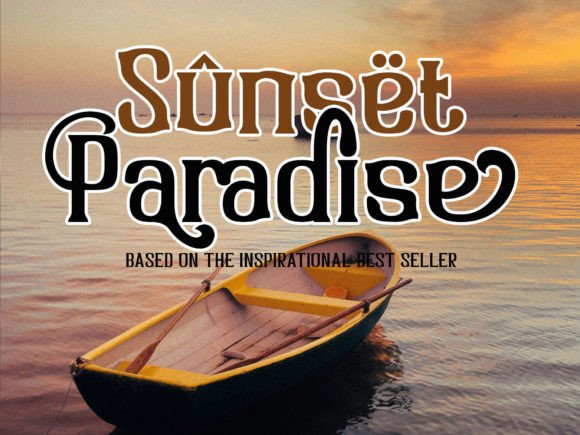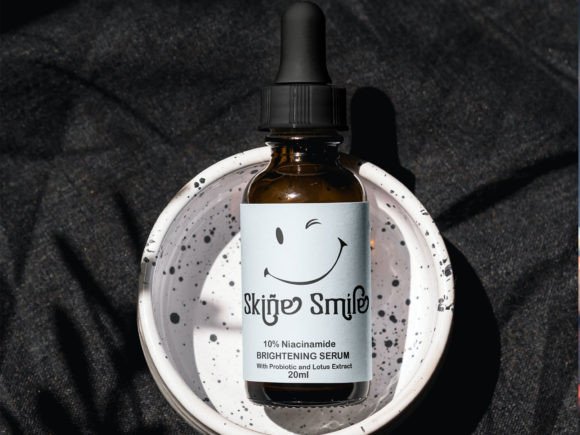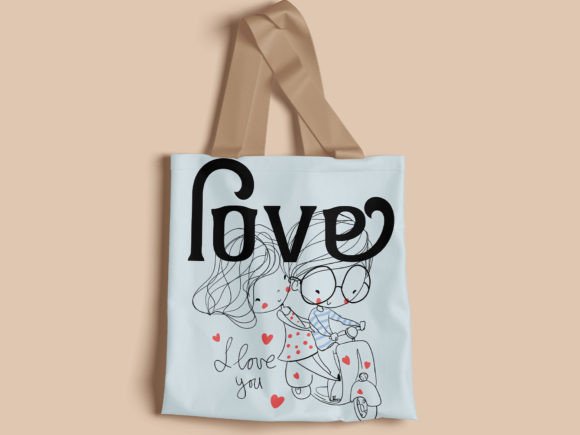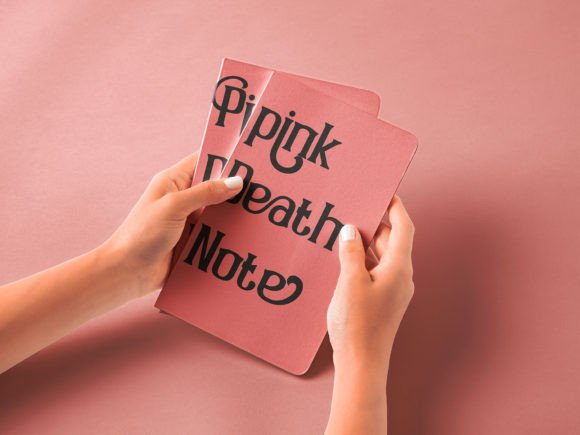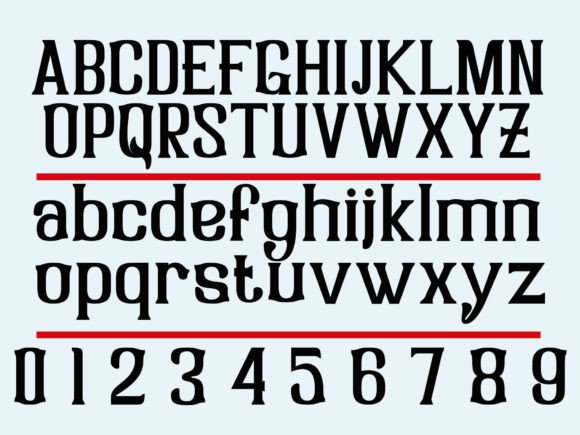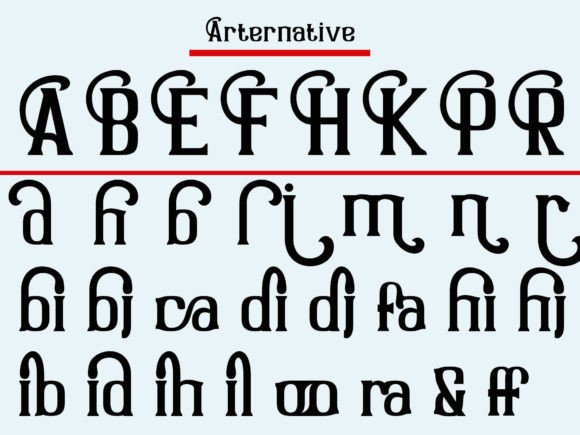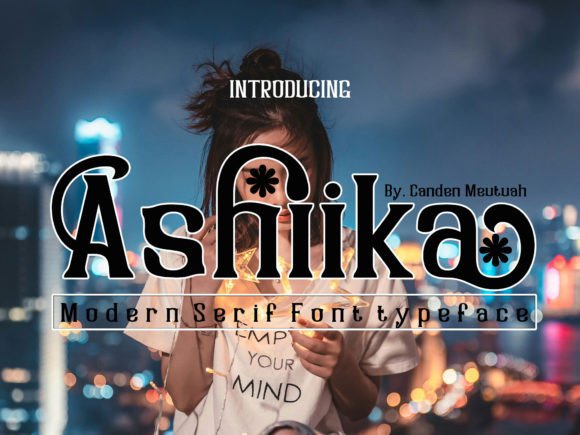
Ashika Font: Elevate Your Designs with Elegance and Modernity
In the world of typography, fonts play a crucial role in conveying the tone and personality of a design. For designers and crafters seeking a simple yet elegant serif font that embodies modern style, Ashika Font is an excellent choice. This versatile font is perfect for a wide range of applications, from branding and logos to wedding designs, social media posts, and more.
What is Ashika Font?
Ashika Font is a beautifully crafted serif font that strikes a balance between simplicity and elegance. Its clean lines, subtle curves, and modern aesthetic make it an ideal choice for designers looking to add a touch of sophistication to their work. Whether you’re creating a brand identity, designing a wedding invitation, or crafting a social media post, Ashika Font is sure to impress.
Key Features of Ashika Font
- Simple and Elegant Design: Ashika Font boasts a clean and refined design that exudes elegance and sophistication.
- Modern Style: With its subtle curves and streamlined lines, Ashika Font is perfect for designs that require a modern touch.
- Versatile: This font is suitable for a wide range of applications, including branding, logos, wedding designs, social media posts, advertising, product packaging, and more.
- Highly Legible: Ashika Font is designed to be highly legible, making it perfect for body text, headings, and titles.
Use Cases for Ashika Font
Ashika Font is an incredibly versatile font that can be used in various design projects. Here are some of the many use cases for this beautiful font:
- Branding and Logos: Create a lasting impression with Ashika Font, perfect for logos, business cards, and brand identity materials.
- Wedding Designs: Add a touch of elegance to your wedding designs, including invitations, programs, and wedding stationery.
- Social Media Posts: Elevate your social media presence with Ashika Font, suitable for posts, captions, and graphics.
- Advertising: Create eye-catching ads with Ashika Font, perfect for print, digital, and online advertising.
- Product Packaging: Add a touch of sophistication to your product packaging with Ashika Font.
- Product Design: Use Ashika Font to create stunning product designs, including labels, tags, and packaging materials.
- Photography: Add a professional touch to your photography with Ashika Font, perfect for watermarks, captions, and photo titles.
- Invitations and Stationery: Create beautiful invitations, stationery, and greeting cards with Ashika Font.
Why Choose Ashika Font?
With so many fonts available, why choose Ashika Font? Here are a few reasons why designers and crafters love this font:
- Unique and Distinctive: Ashika Font offers a unique and distinctive style that sets it apart from other serif fonts.
- Elegant and Sophisticated: This font exudes elegance and sophistication, making it perfect for high-end designs.
- Highly Versatile: Ashika Font can be used in a wide range of design projects, from branding and logos to wedding designs and social media posts.
- Easy to Read: This font is highly legible, making it perfect for body text, headings, and titles.
| Font Name | Ashika Font |
| Author | Canden Meutuah |
In conclusion, Ashika Font is a simple yet elegant serif font that embodies modern style. Its versatility, legibility, and sophistication make it an excellent choice for designers and crafters seeking a high-quality font for their design projects. Whether you’re creating a brand identity, designing a wedding invitation, or crafting a social media post, Ashika Font is sure to elevate your designs to the next level.